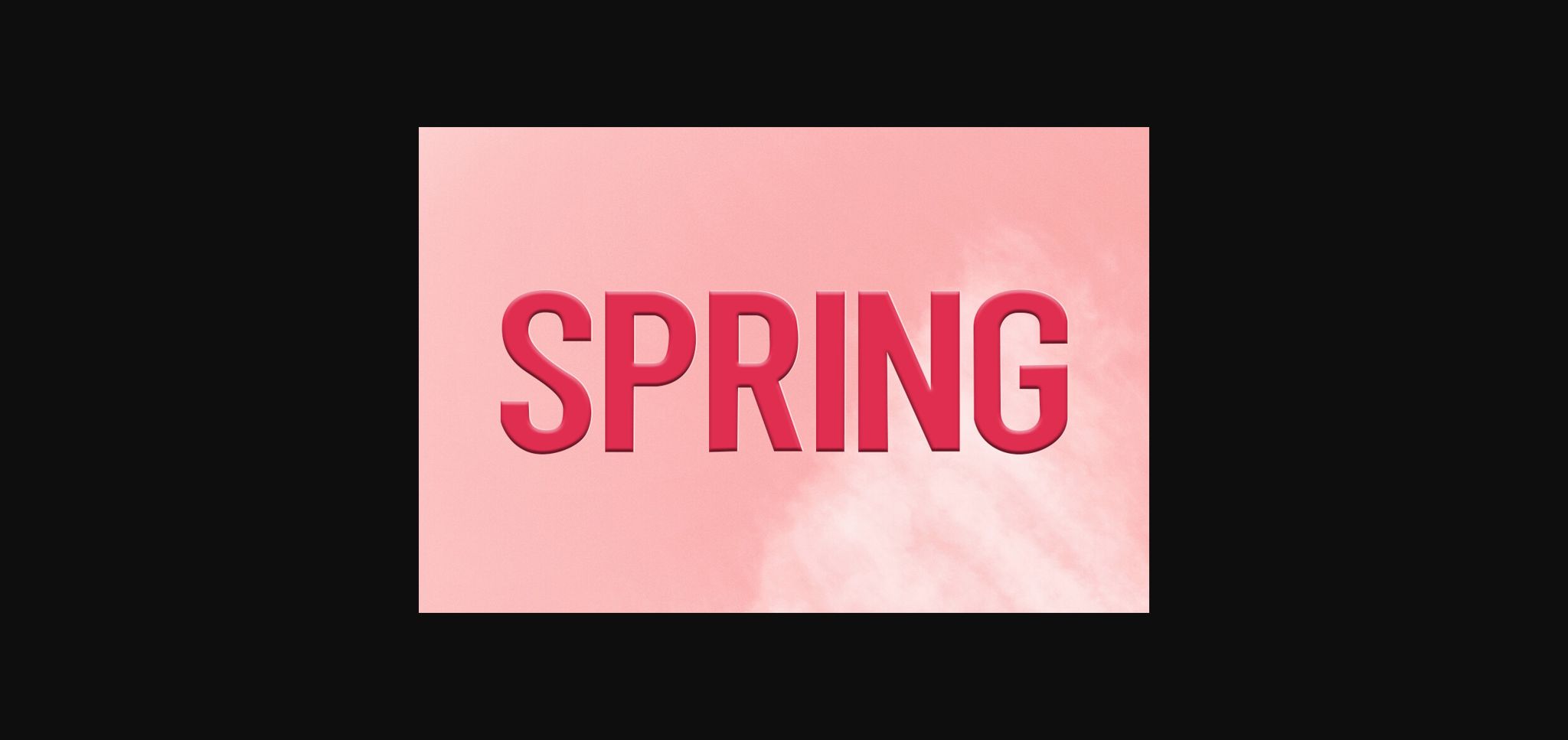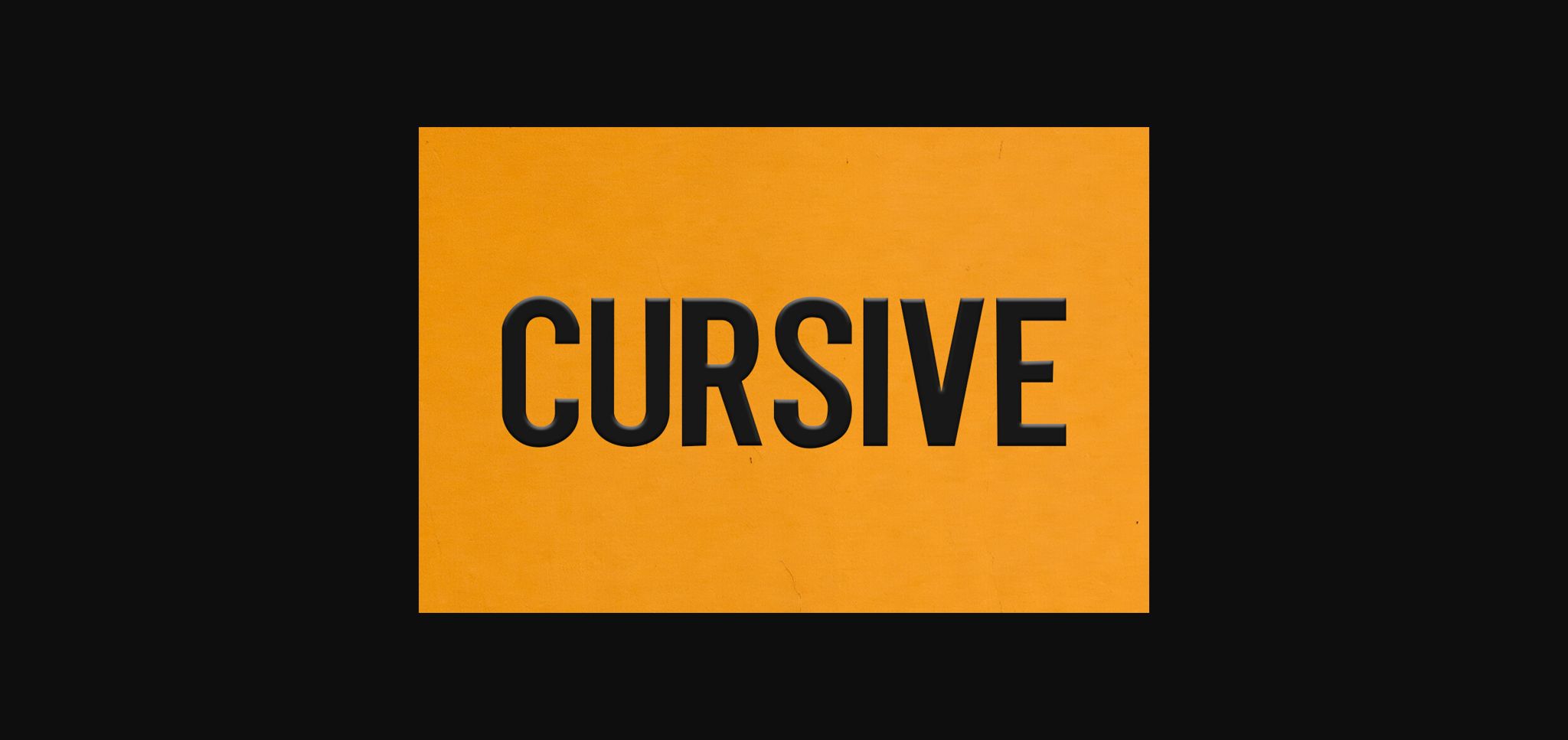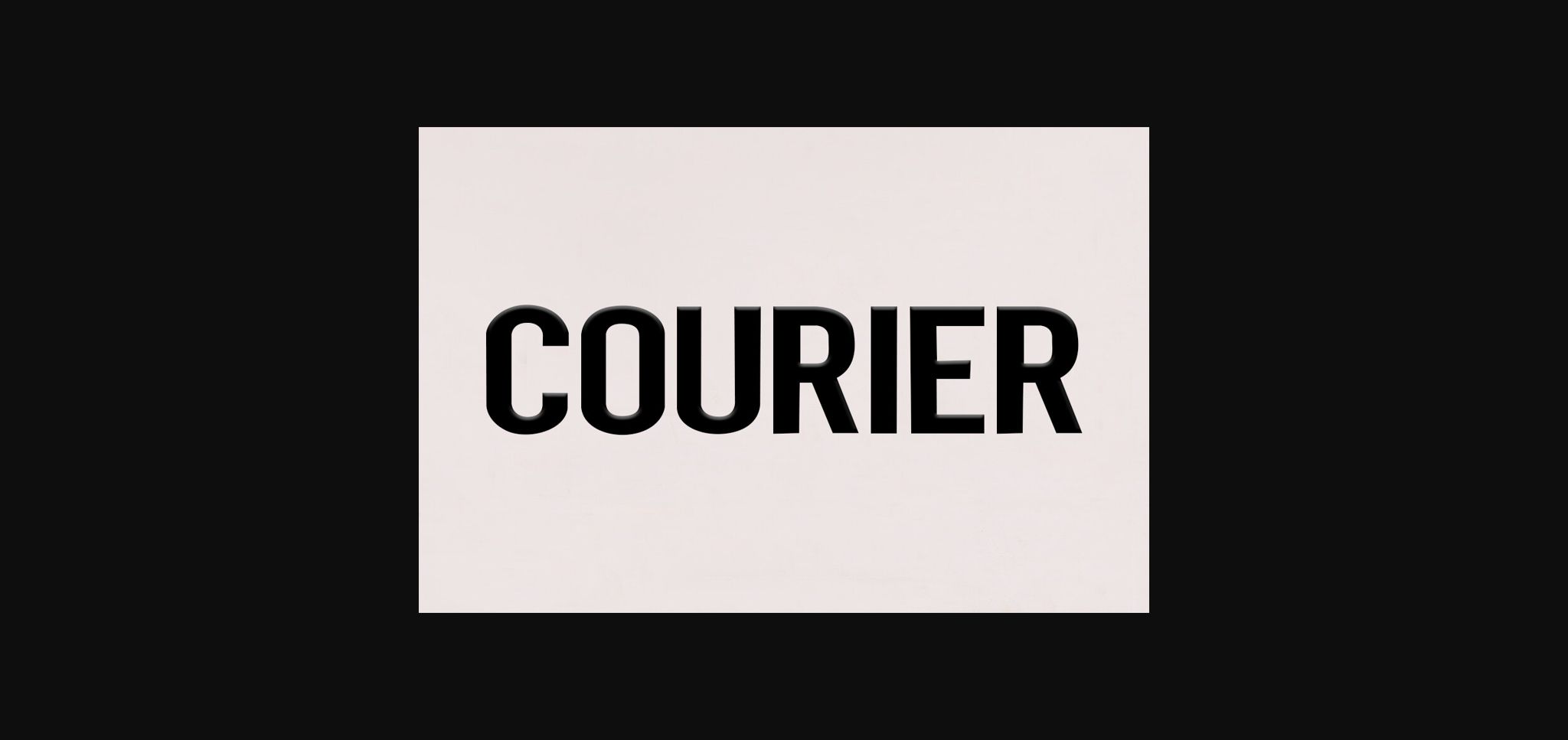
HomeSans Serif FontsCursive Font Sans Serif Fonts Cursive Font FacebookXPinterestWhatsApp 1 of 5 ... Cursive Font Poster 2... Cursive Font Poster 3... Cursive Font Poster 4... Cursive Font Poster 5... About Cursive Font Cursive is a bold and assertive sans serif font. Add it to your creative projects and enjoy the results! DOWNLOAD NOW People also explored Gerth Font Mary Slim Font Simple Beach Font Andalica Font Carribean Nut Font Oopsie Daisy Font Dastie Font Stay Live Font Altarimoon Font 550 0 TagsCursiveCursive Font Previous articleRegas FontNext articleAbotyh Font LEAVE A REPLY Cancel reply Comment: Please enter your comment! Name:* Please enter your name here Email:* You have entered an incorrect email address! Please enter your email address here Website: Save my name, email, and website in this browser for the next time I comment. Personal Use Free Coconote Personal Use Free Read more about this font Little Pigeon Personal Use Free Read more about this font Archeology Personal Use Free Read more about this font Engine Personal Use Free Read more about this font BLOG 5 Fonts That Will Dominate Design Trends in 2026 5 Fonts for 2026 That Will Dominate Design Trends Typography plays a critical role in visual communication, and as we look ahead to 2026, it’s... Free vs Paid Fonts: Why Investing in Premium Fonts Is Worth It Using Fonts in Digital Marketing: Tips to Strengthen Your Brand Identity How to Cut Any Font on Cricut: Convert a Font to SVG (Free)